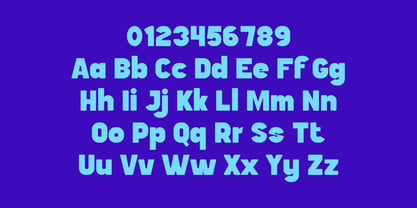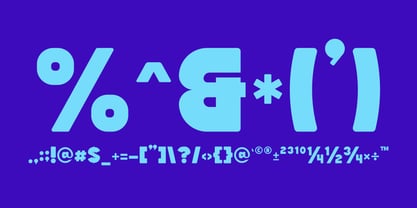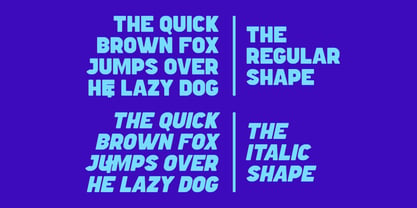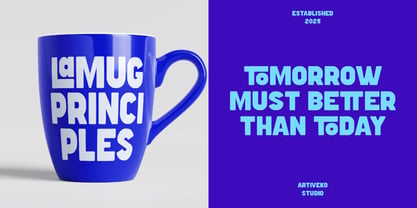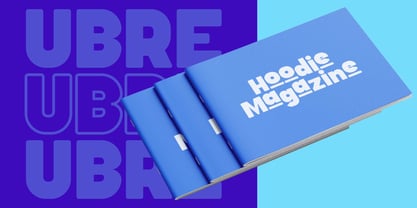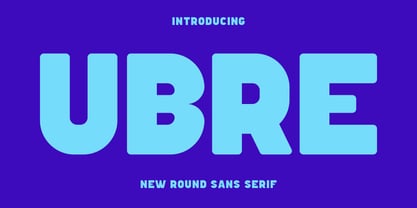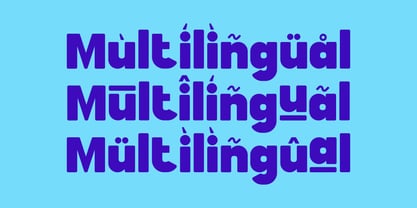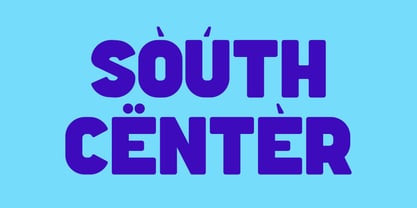
Ubre
von Artiveko
Die Schriftfamilie Ubre wurde von Iwan Alwan entworfen und von Artiveko veröffentlicht. Ubre enthält 2 Stile und Familienpaketoptionen.
Ubre is a modern retro font blending nostalgic charm with contemporary design. Its bold curves and vintage-inspired letterforms make it perfect for branding, posters, packaging, and editorial layouts. With multilingual support, ligatures, and alternates, Ubre brings a timeless yet fresh aesthetic, making it an excellent choice for projects that need a stylish retro touch with a modern twist.